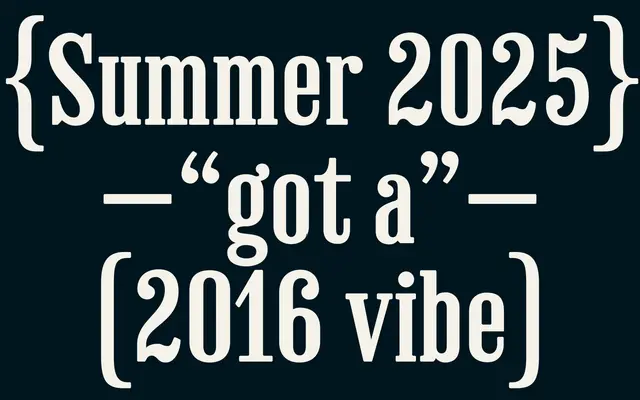
Fru Olsen
A display typeface from Playtype with a distinct personality, suited to editorial and narrative contexts.
Fru Olsen is a display typeface from Copenhagen foundry Playtype, named with the kind of specificity that suggests a strong typographic character. The sparse page copy leans into storytelling rather than specification, which is typical of Playtype's approach to their more expressive cuts. Details on weights and language coverage are not provided on the page.
The name and the evocative, character-driven copy suggest a distinctive display typeface with personality; classified as display serif based on the editorial, narrative tone typical of Playtype's display offerings.